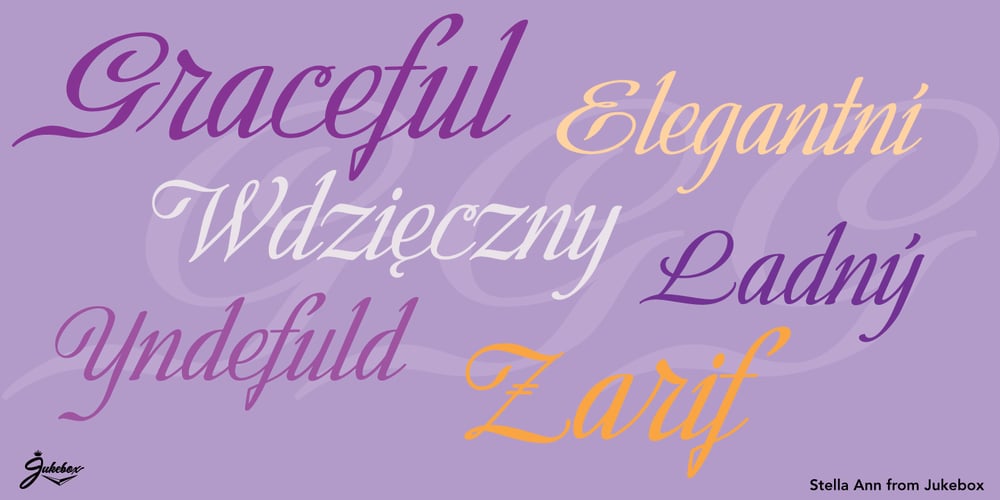
Stella Ann Font Family was designed by Jason Anthony Walcott and published by Jukebox Collection. Stella Ann contains 1 styles and family package options. Stella Ann is another great addition to the script fonts of the Jukebox collection. Named after the designer’s maternal grandmother, Stella Ann is a beautiful flowing calligraphic style font. It is both bold and strong, yet warm and graceful, just like its namesake. Perfect for wedding invitations, business cards, scrapbooking and much more! Jukebox fonts are available in OpenType format and downloadable packages contain both .otf and .ttf versions of the font. They are compatible on both Mac and Windows. All fonts contain basic OpenType features as well as support for Latin-based and most Eastern European languages.